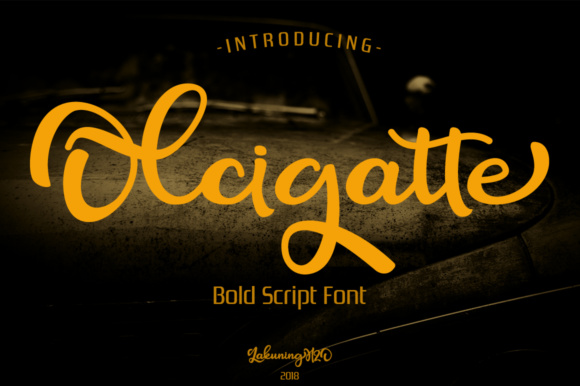
Enter the realm of boundless creativity and visual splendor with Olcigatte, a script font that ignites imagination and captivates hearts. Its bold strokes, infused with a touch of elegance, unravel a world of possibilities for your creative endeavors.
As a script font, Olcigatte dances across your designs with a captivating rhythm. Its meticulously crafted characters, adorned with unique flourishes and graceful curves, lend an air of sophistication to any project. Whether you're weaving enchanting logos, crafting captivating social media posts, or designing breathtaking invitations, Olcigatte elevates your words into works of art.
With Olcigatte, versatility knows no bounds. Its inherent charm shines through in a myriad of contexts, from branding and packaging to web design and editorial projects. Its bold presence commands attention on posters and flyers, while its elegant demeanor lends a touch of class to brochures and presentations. Immerse yourself in a boundless realm of creative expression, where Olcigatte transforms your designs into visual masterpieces.
Unleash your creativity and embark on a journey of visual enchantment with Olcigatte. Its striking, yet elegant appearance captivates audiences, leaving a lasting impression that lingers long after the final stroke. Whether you're a seasoned designer or a budding enthusiast, Olcigatte empowers you to create designs that resonate with your audience and leave them spellbound.